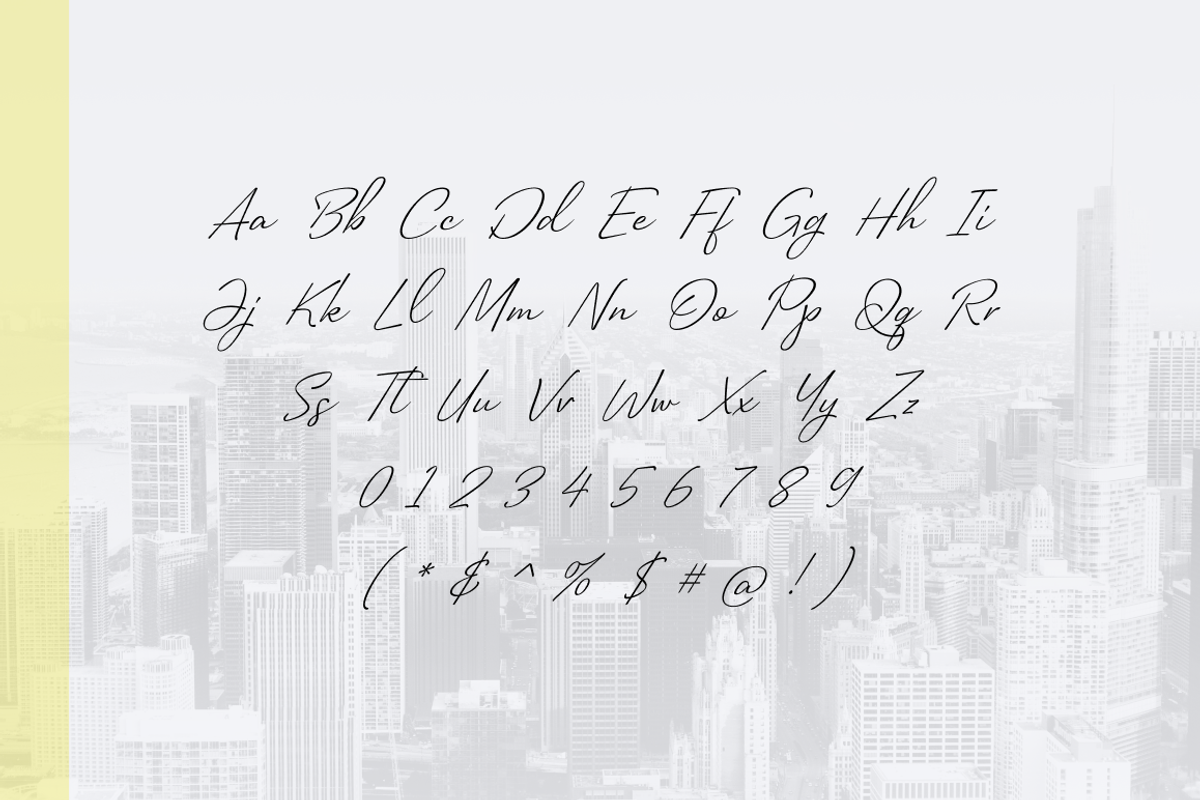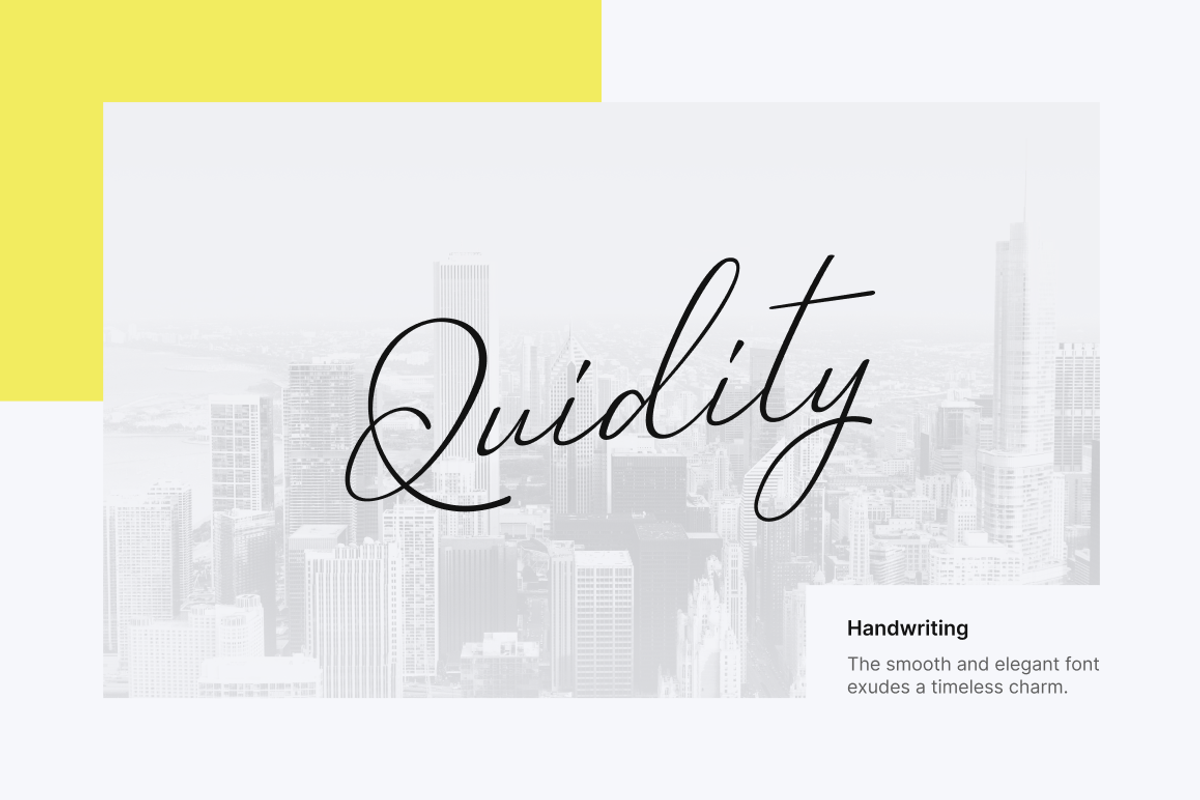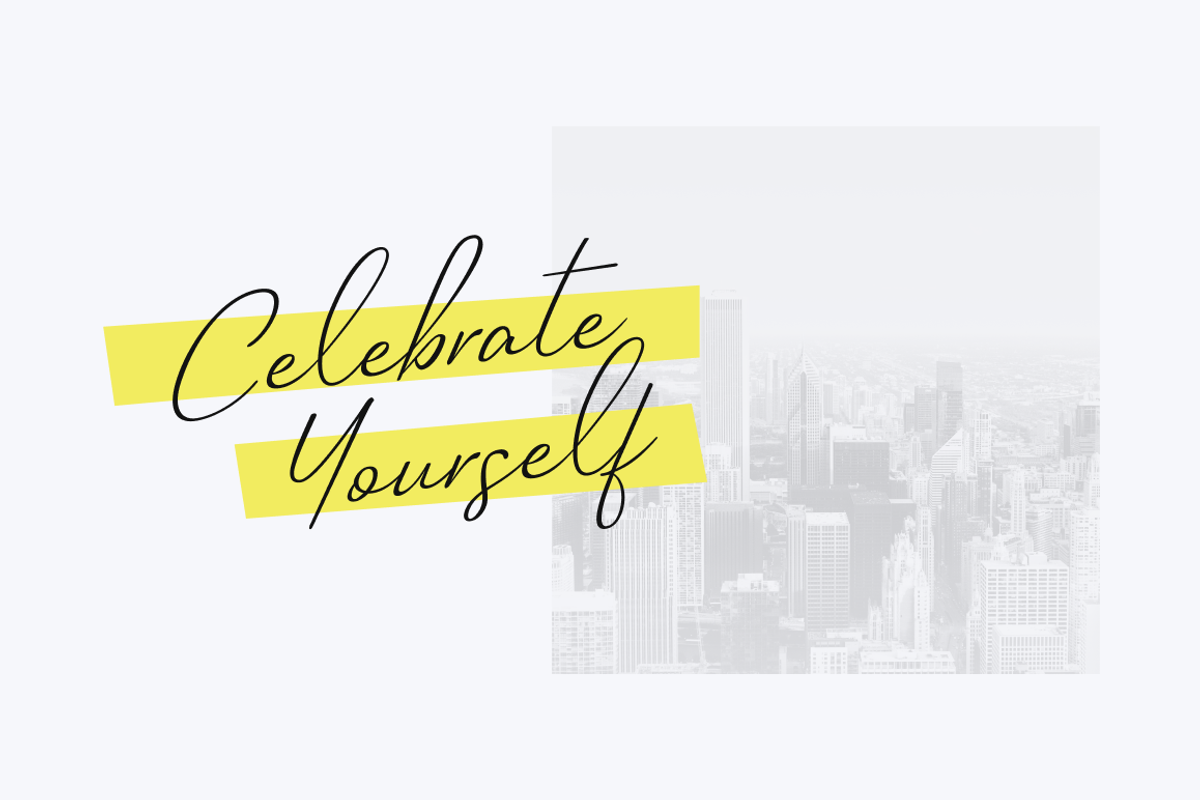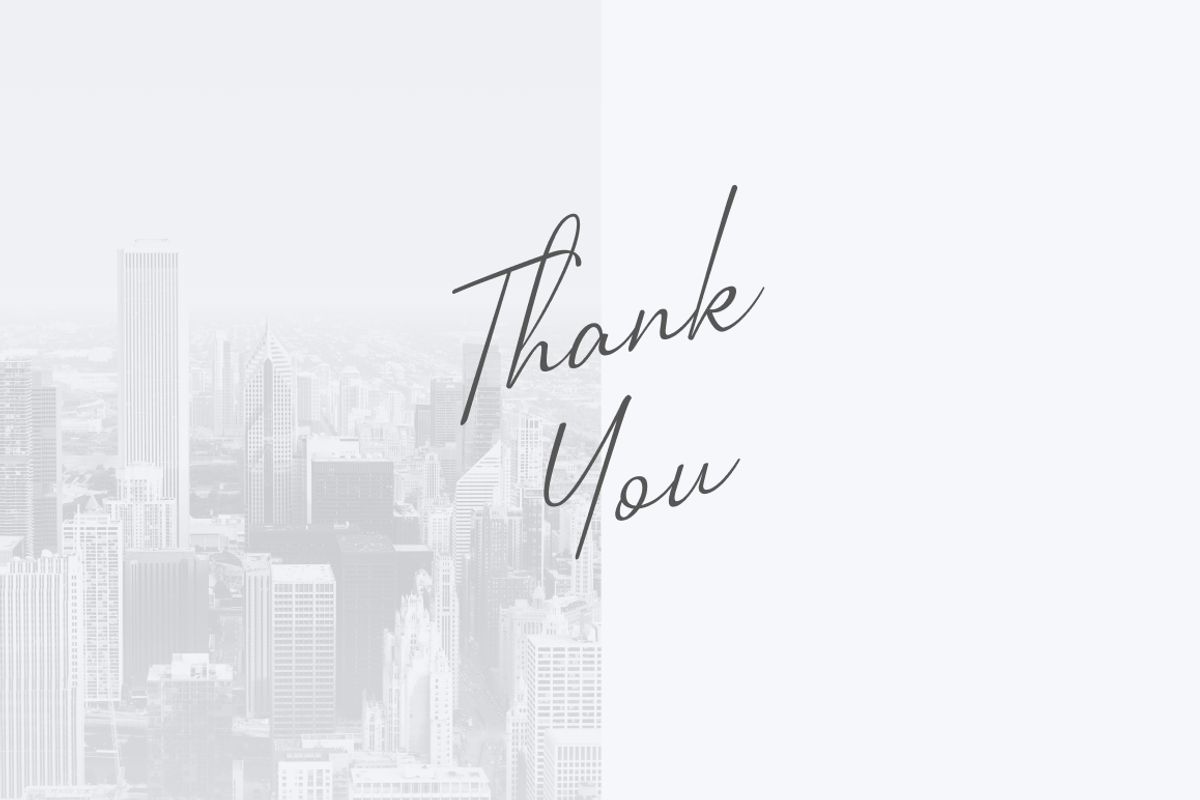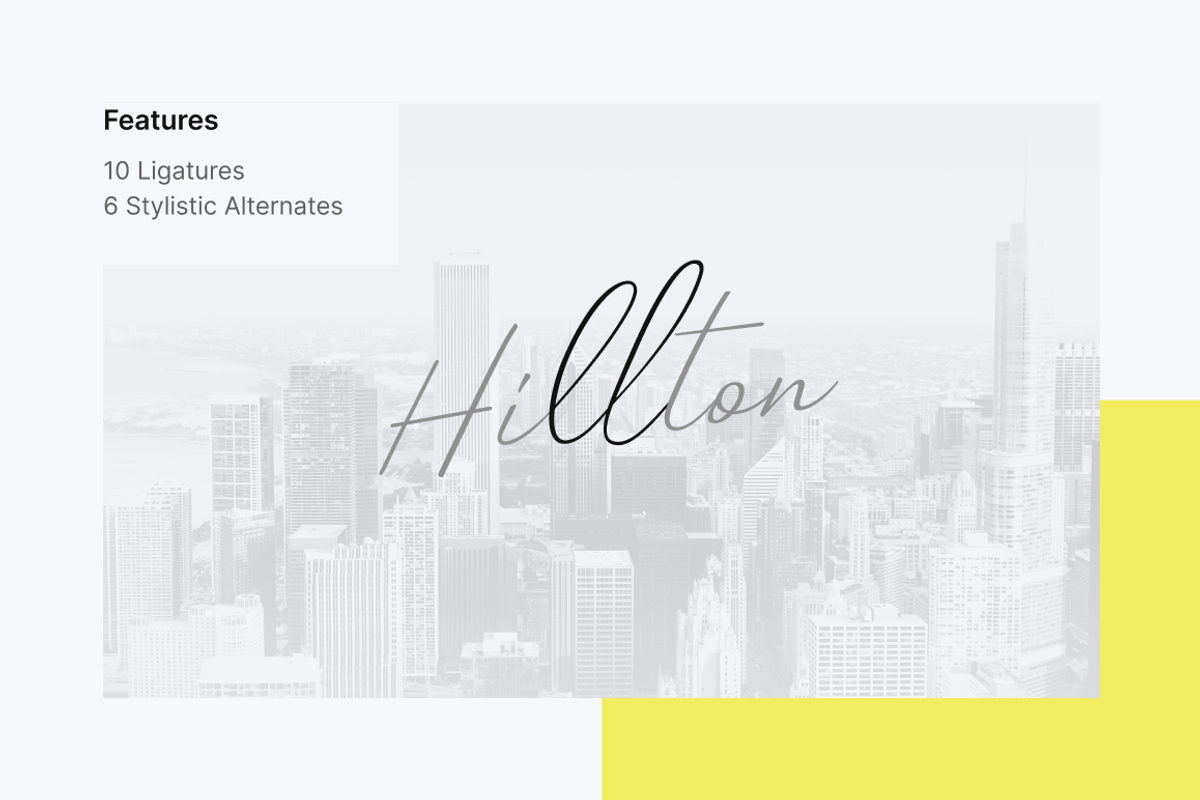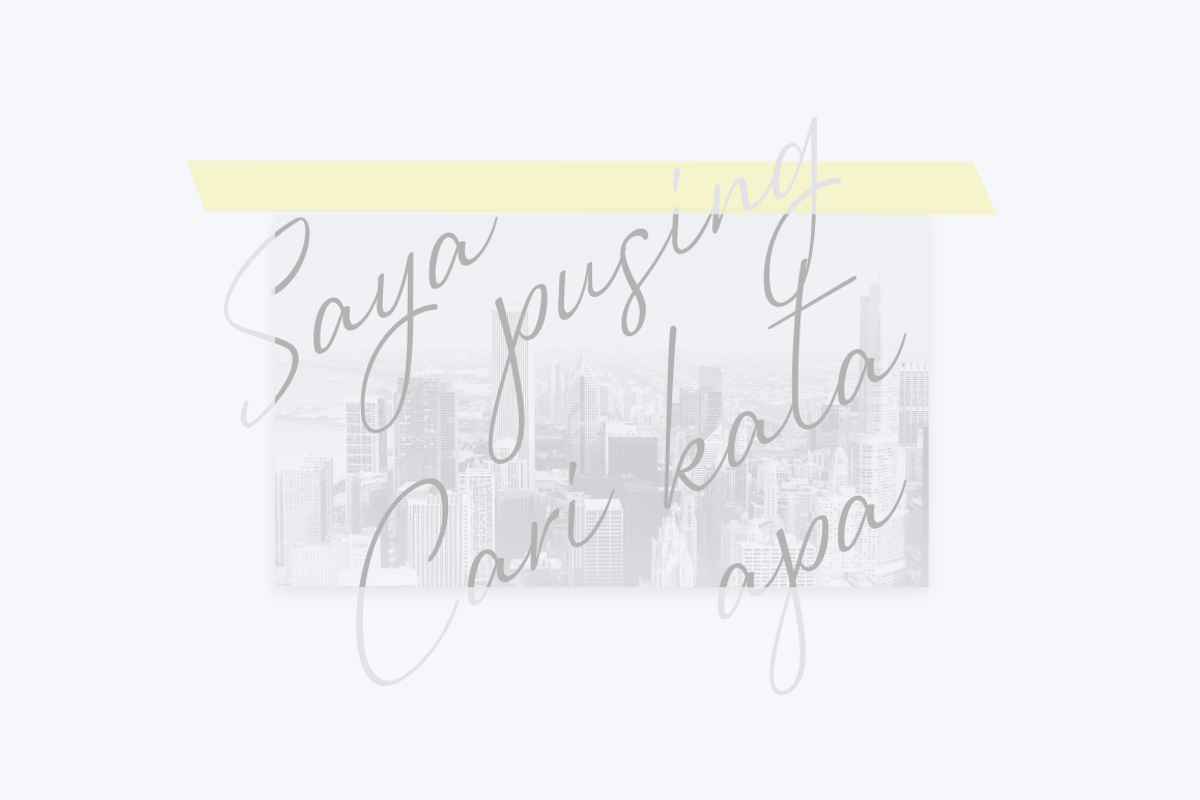
Quidity - Handwriting Typeface
Quidity: A timeless blend of elegance and personality, this handwritten font captures the essence of classic signatures and cursive artistry. Ideal for displays, invitations, and adding a touch of sophistication to any project, Quidity seamlessly combines the grace of cursive with the distinct charm of personalized handwriting.
Elevate your designs with this versatile font that effortlessly balances a classic appeal with a modern touch.